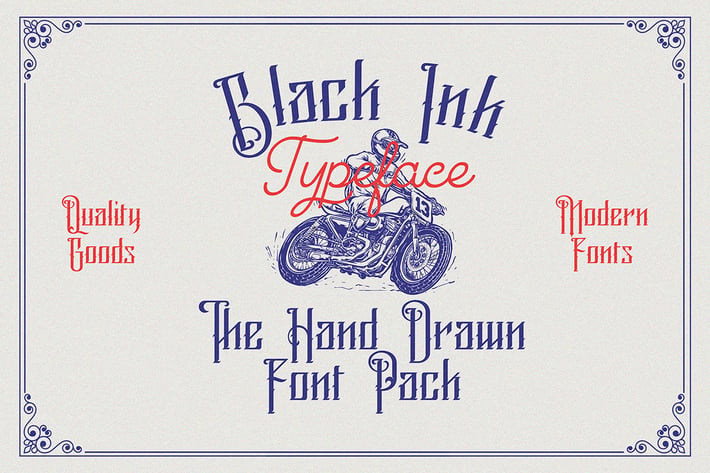
Black Ink Vintage Blackletter Font
Vintage, decorative, retro & blackletter style serif font. Great for your new logo or branding project.
- Great for retro or vintage style branding projects